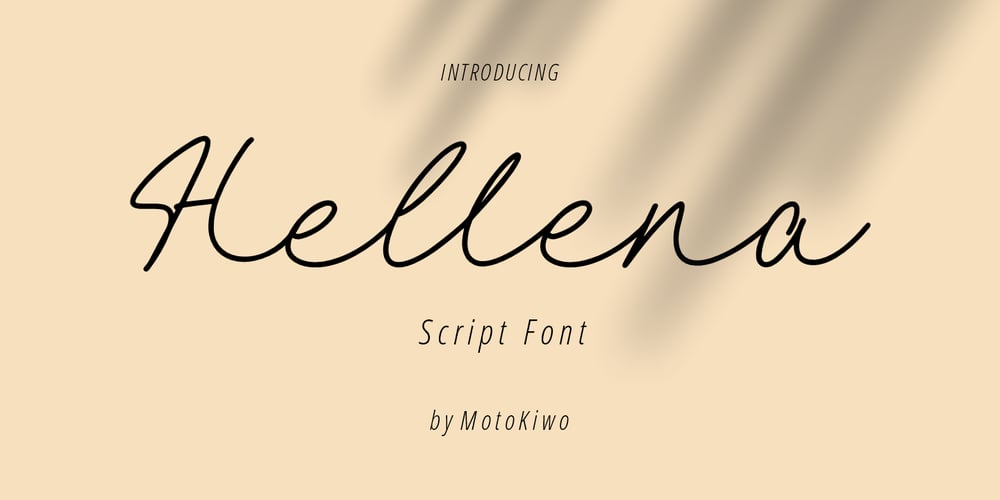
Hellena
Hellena font
Hellena Font Family was designed by Anton Cahyono and published by Motokiwo. Hellena contains 1 styles and family package options. Hellena, an elegant script font that great for fashion, quote, and many more. This font was designed with uppercase, lowercase, ligature, numbers, punctuation, and also multilingual support.